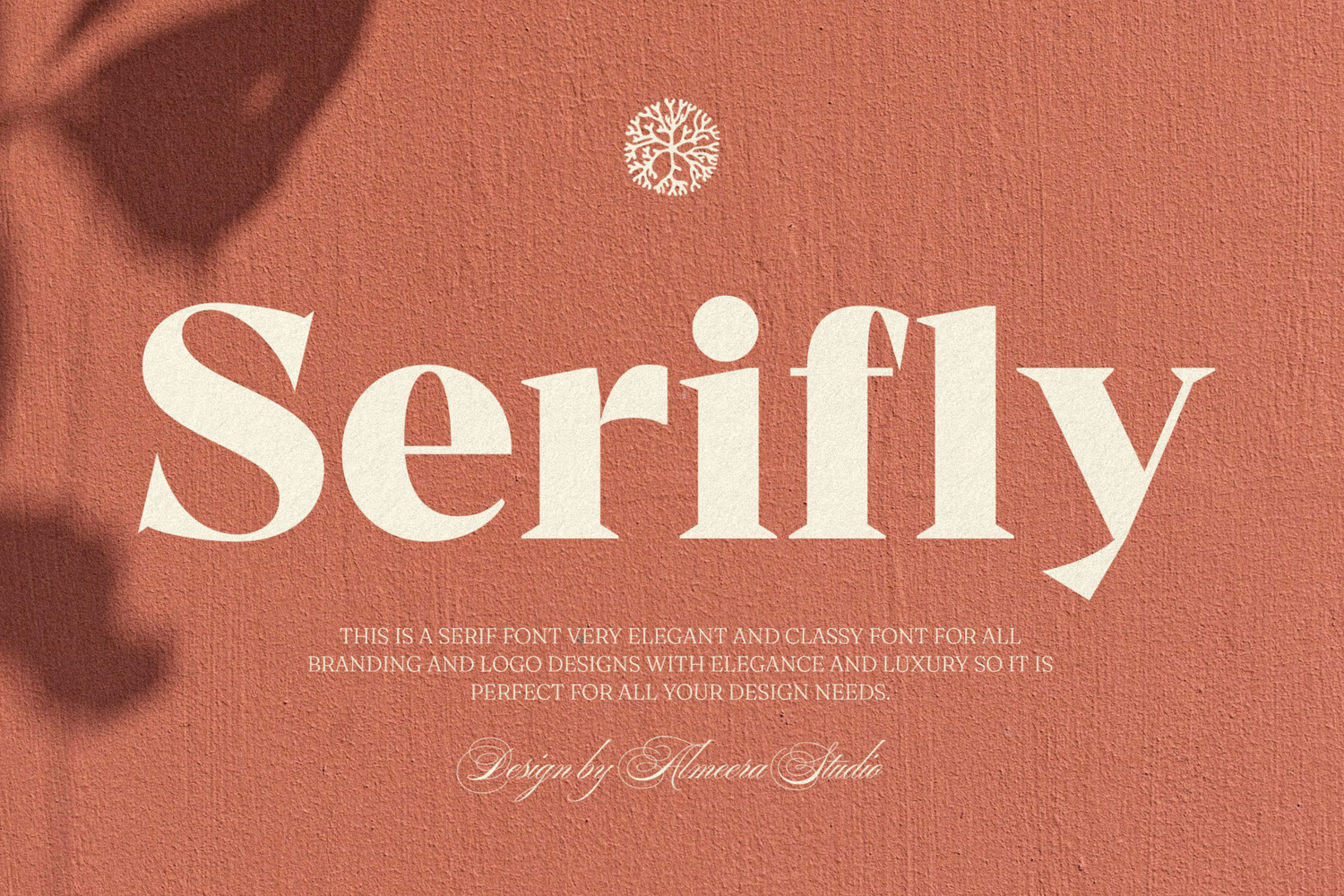
Serifly
Introducing Serifly - Bold serif font. Serifly is a bold, stylish & elegant serif font, This type of font is very suitable for your various needs such as branding projects, logos, social media posts, advertisements, labels, product packaging, photography, wedding designs, watermarks, invitation product designs, stationery, and any project.